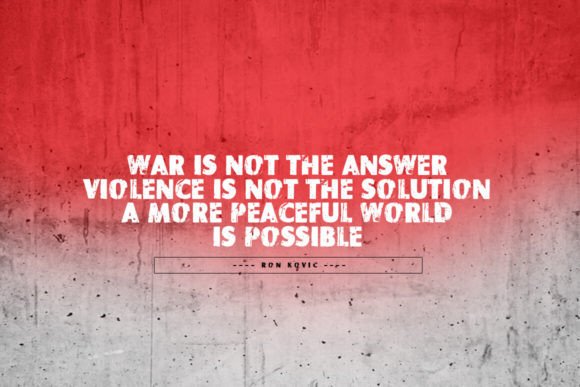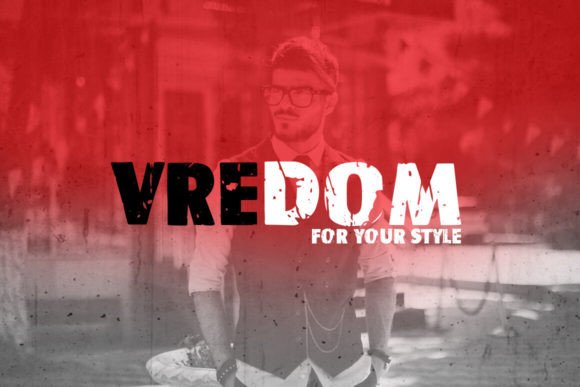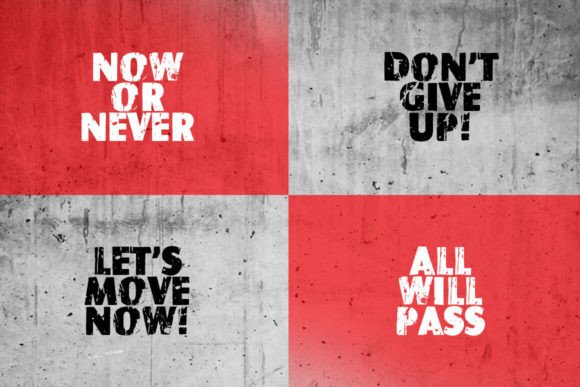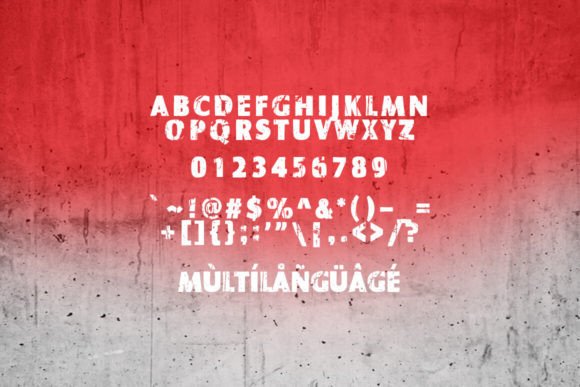
Introduction to Rockwill Font
Rockwill is a modern sans serif rough font perfect for posters, logos, magazines, book covers, banners, and many more.
Get this quirky font, and use it to create lovely designs It can easily be matched to an incredibly large set of projects, so add it to your creative ideas and notice how it makes them stand out.